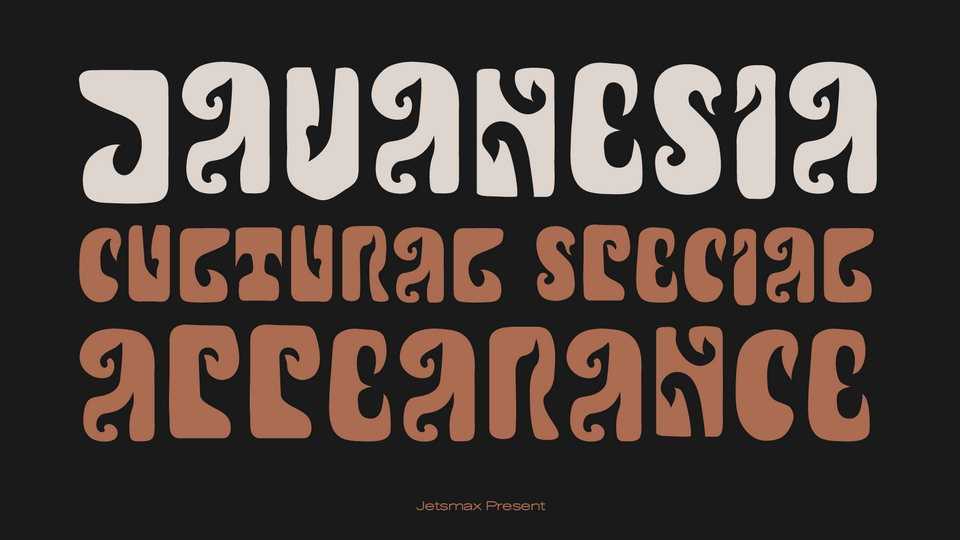
Download Javanesia font, a special and unique display typeface that inspired by a Javanese culture from Indonesia, specially made to give an authentic hand drawn look to any kind of design projects
Designer: Jetsmax Studio